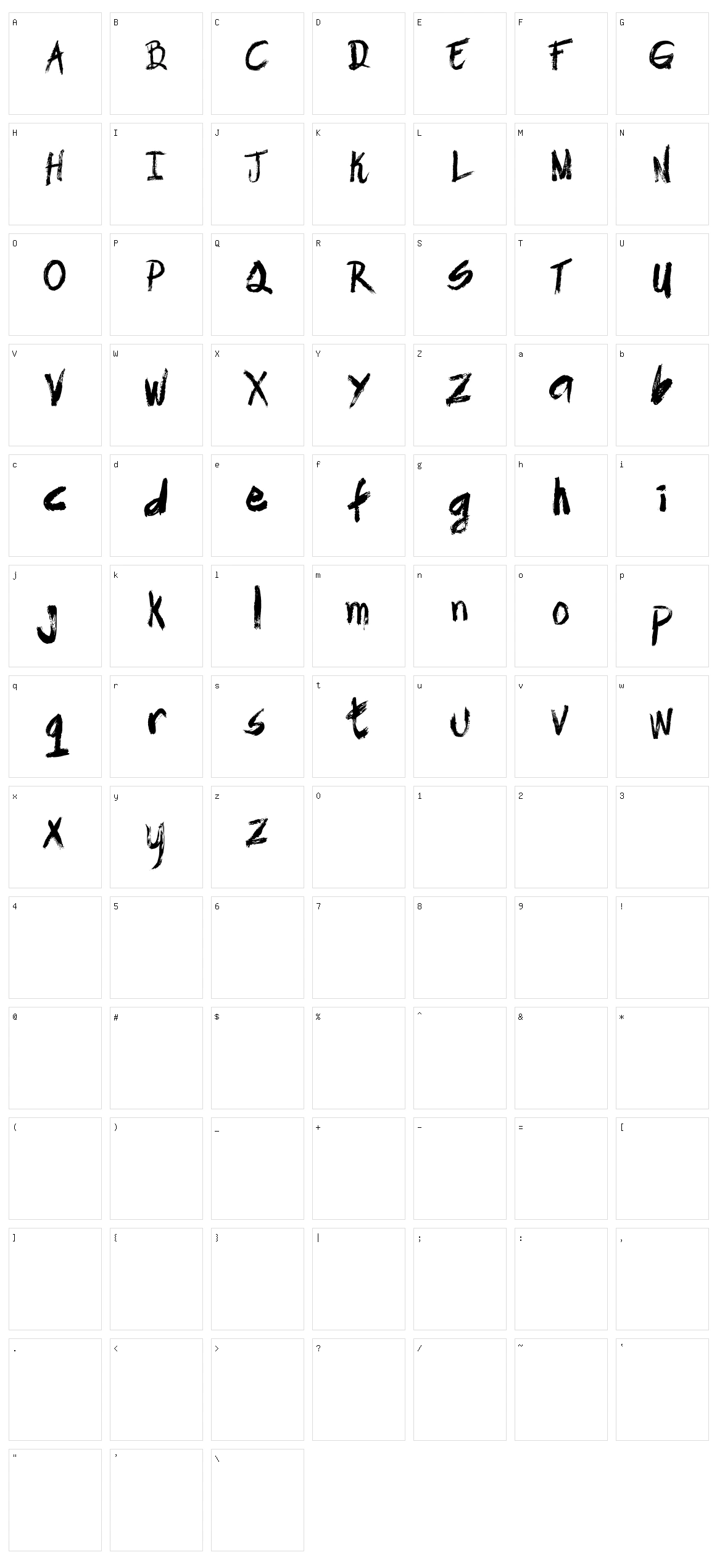
The free font Skydome Glory is carefully designed by Mayonpx, showcasing a thoughtful balance of creativity and usability and falls under the Script font style. When you download the ZIP file, it contains only 2258.85 KB of font files, making it lightweight and quick to download. Please review the license details below to understand permitted usage and distribution rights. If license information is not available, we recommend using this font for personal projects only or contacting the author directly for commercial usage permissions.